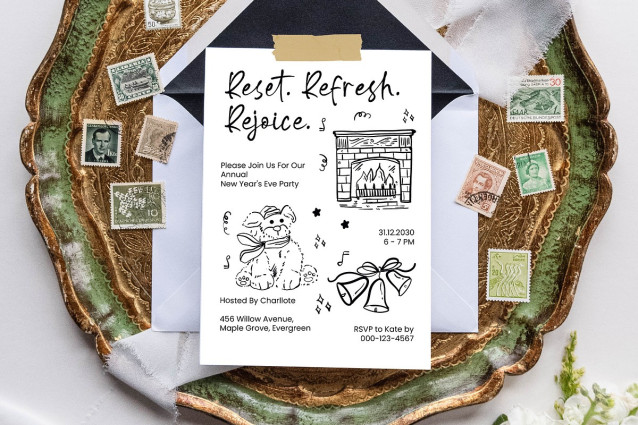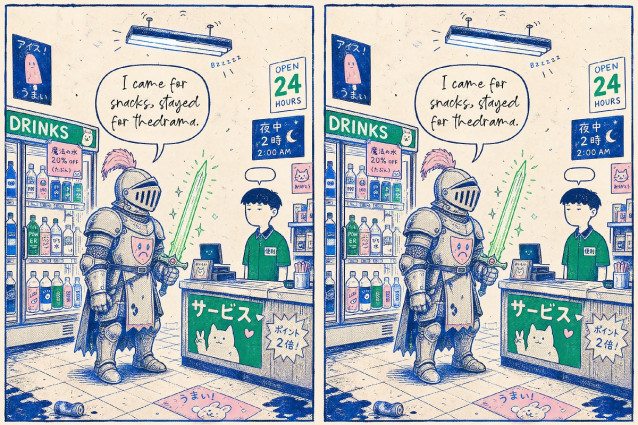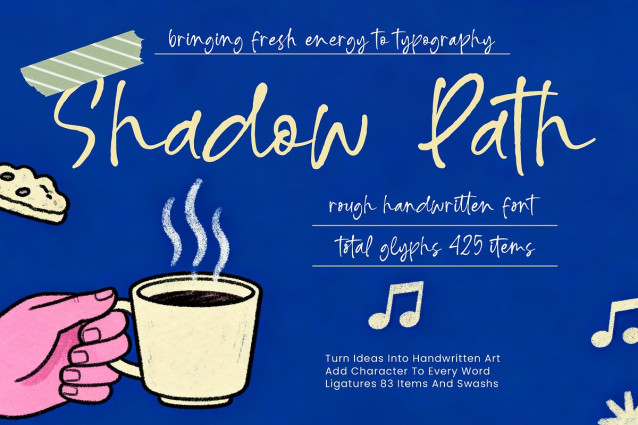
Shadow Path Font
Shadow Path Font a typeface designed to infuse your designs with authentic personality and artistic flair. This premium script captures the essence of spontaneous penmanship, offering a hand-drawn aesthetic that feels both intimate and professional. With its unique textures and dynamic flow, it transforms standard text into a striking visual statement, ensuring your brand stands out in a crowded digital landscape.
Versatility is at the core of this typeface’s design, ensuring it meets the demands of a modern, interconnected world. With its extensive multilingual support, Shadow Path – Rough Handwritten Font adapts seamlessly across global markets, making it incredibly versatile for international projects. By providing broad character coverage, it allows designers to maintain brand consistency regardless of geographic boundaries or linguistic requirements, making it a highly reliable asset for any global design toolkit.
This expressive typeface is the perfect choice for a wide range of high-impact applications, including bespoke luxury branding, editorial layouts, creative packaging, and dynamic social media content. Whether you are crafting invitation suites, lifestyle headers, or personalized merchandise, Shadow Path – Rough Handwritten Font provides the visual weight and organic charm necessary to connect with your audience. It is particularly effective for boutique identities that require a distinctly human touch.
Unleash the full potential of your typography by leveraging the 83 custom ligatures and stylized swashes included in this comprehensive font package. The deliberate imperfections and natural rhythm of Shadow Path – Rough Handwritten Font create a sense of hand-crafted mastery that is impossible to replicate with sterile, standard fonts. Choose this versatile handwritten font to deliver impactful messaging that resonates with modern sophistication and unstoppable creative energy.